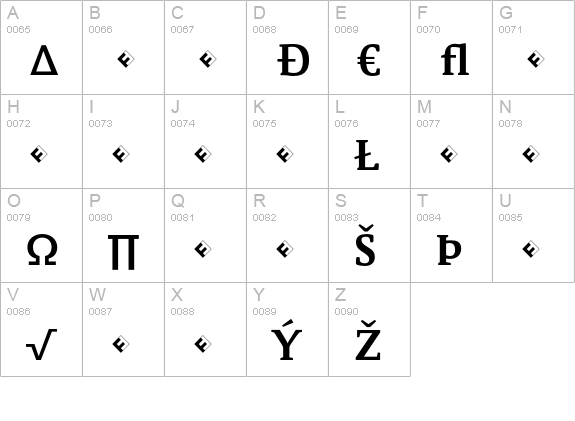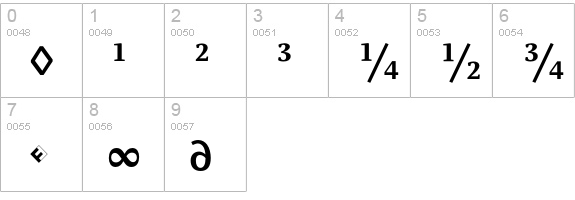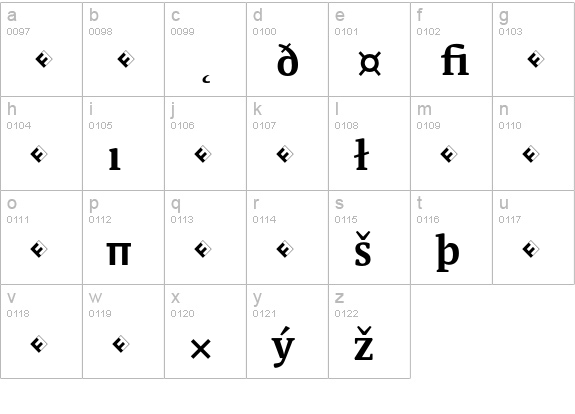
Parable-BoldExpert Font Details
Parable-BoldExpert font is a truly remarkable typeface that exudes confidence and strength with every character. Its bold and expertly crafted design captivates the eye, making it an excellent choice for headlines, logos, and branding materials that demand attention. The Parable-BoldExpert font is a versatile and dynamic typeface that effortlessly combines elegance and modernity. Its clean lines and sharp edges create a polished and professional look, while its bold weight adds a touch of boldness and impact to any design. One of the most notable features of the Parable-BoldExpert font is its exceptional legibility. Each letter is meticulously designed to ensure clarity and readability, even at smaller sizes. This makes it an ideal choice for websites, magazines, and any other medium where content needs to be easily read and understood. But what truly sets the Parable-BoldExpert font apart is its availability. This extraordinary font is not only visually stunning but also freely available to download at FontsMarket.com. This means that designers and creatives can access this incredible typeface without any cost, allowing them to unleash their creativity and elevate their designs without any constraints. Whether you are creating a bold and impactful poster, a striking and memorable logo, or a sleek and modern website, the Parable-BoldExpert font is the perfect choice. Its stylish design, exceptional legibility, and the fact that it is freely available to download at FontsMarket.com make it a must-have for any design project.